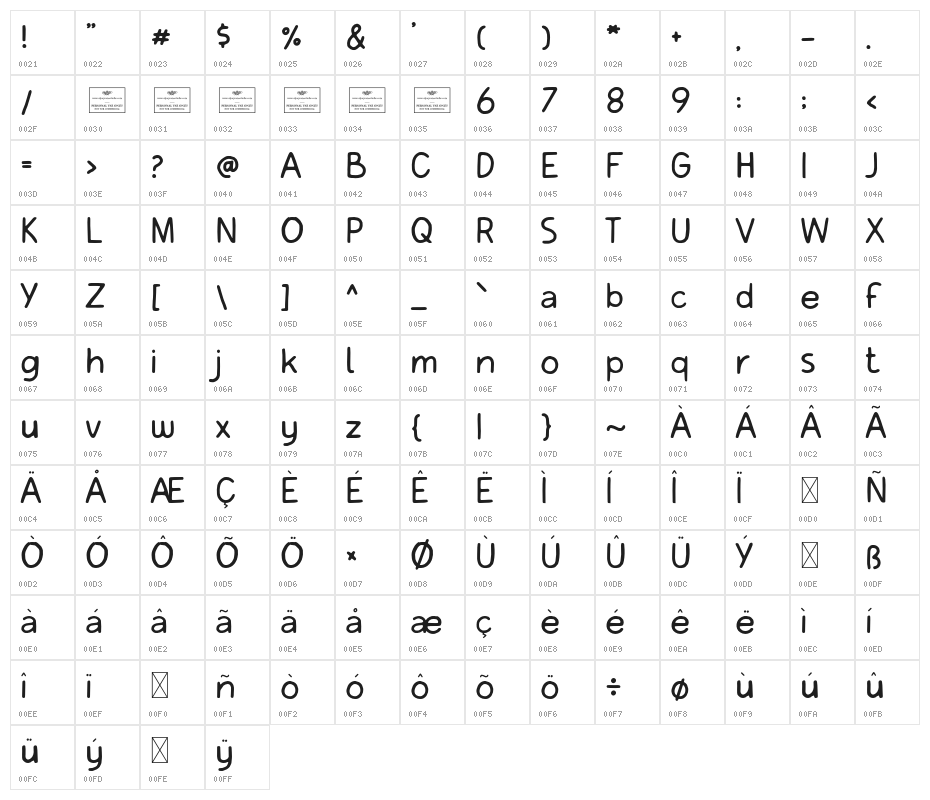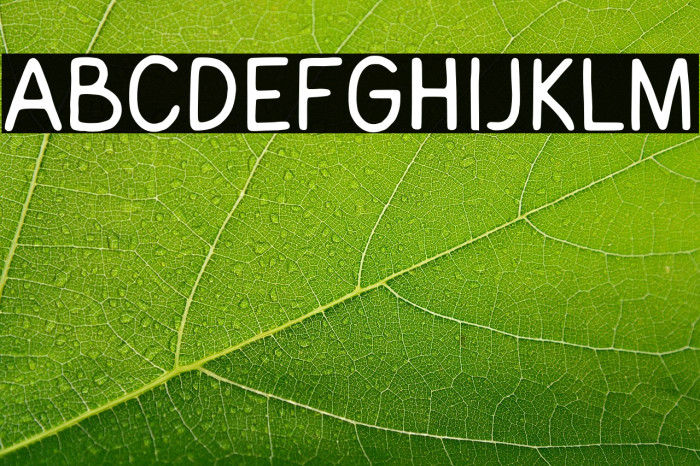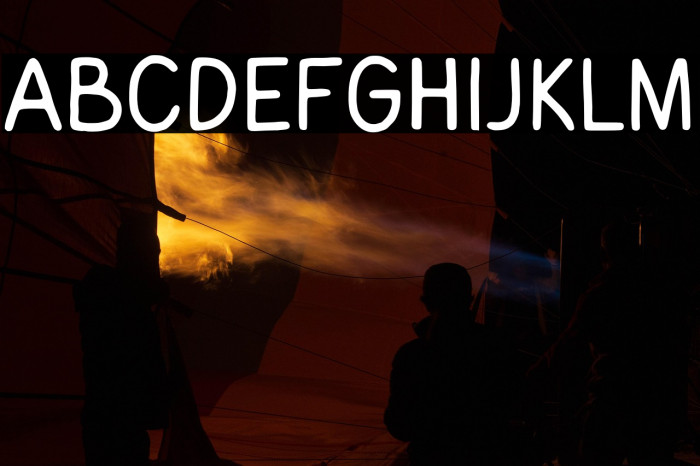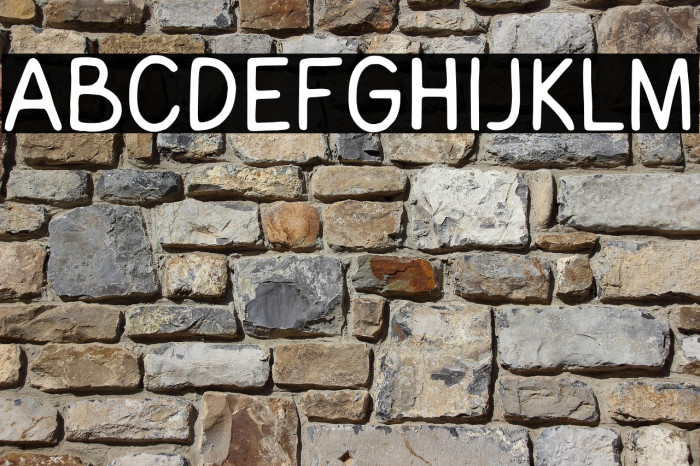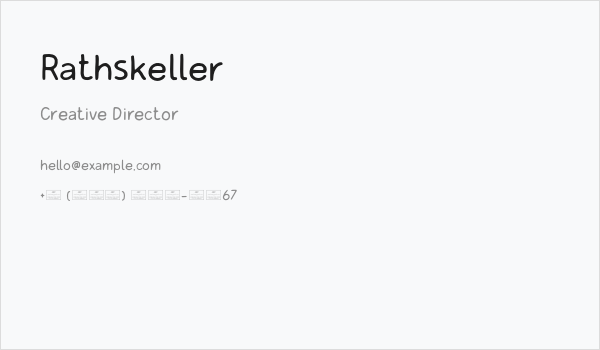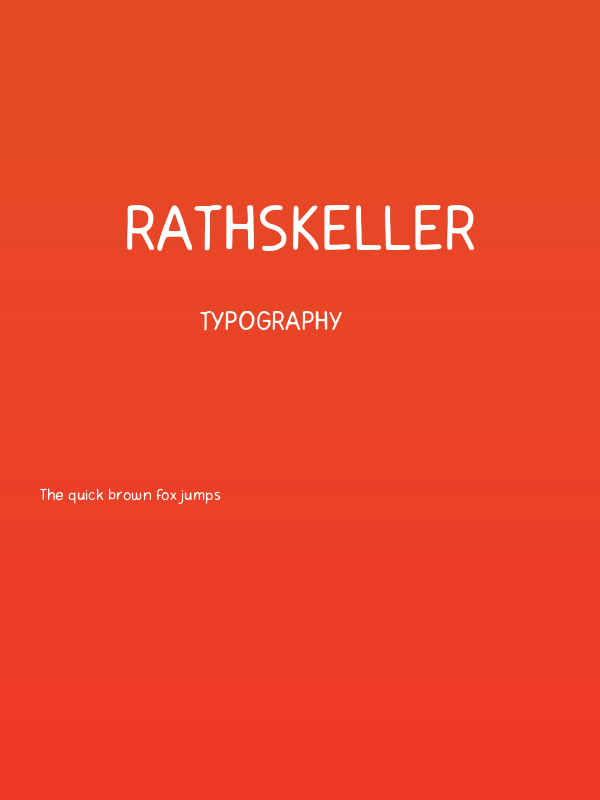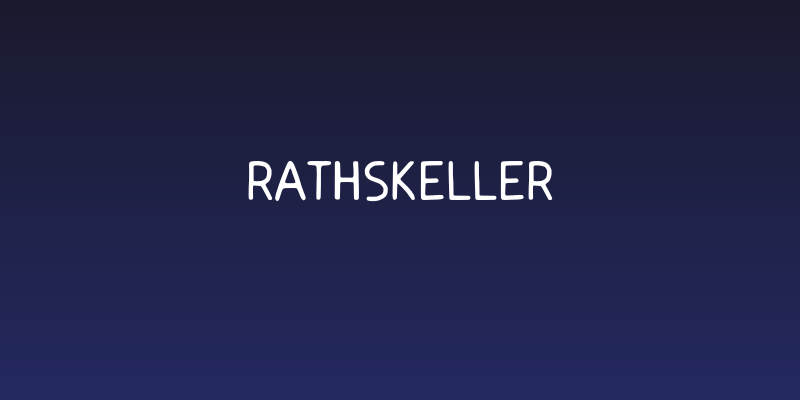
Rathskeller Font
Rathskeller Description
A playful, rounded sans-serif font with a handwritten appearance, featuring consistent stroke thickness and slightly irregular letterforms that add a casual, friendly feel. The characters are open and legible, with moderate spacing and a uniform baseline.
| Overall Style | Casual, Playful, Handwritten |
| Use Case | Headlines, Short text, Posters, Informal branding |
| Proposed Projects | ChildrenΓ’β¬β’s books, informal invitations, greeting cards, educational materials, playful branding. |